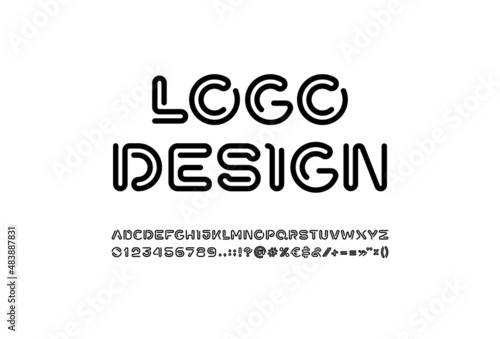
Digital style alphabet, trendy font from thick segment rounded line, minimal technology style letters and numbers and punctuation marks, vector illustration 10EPS